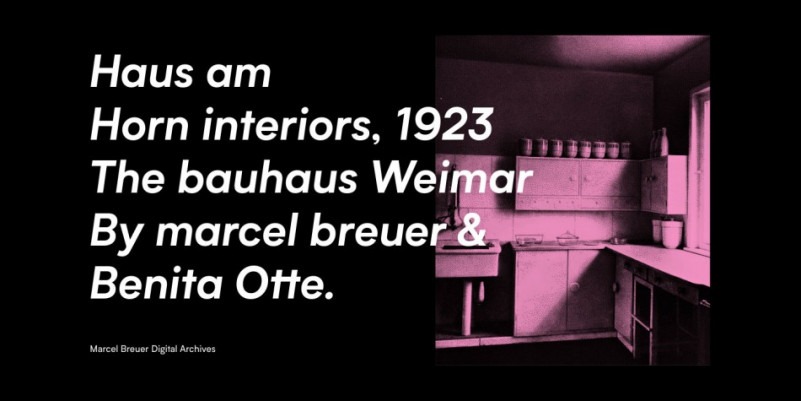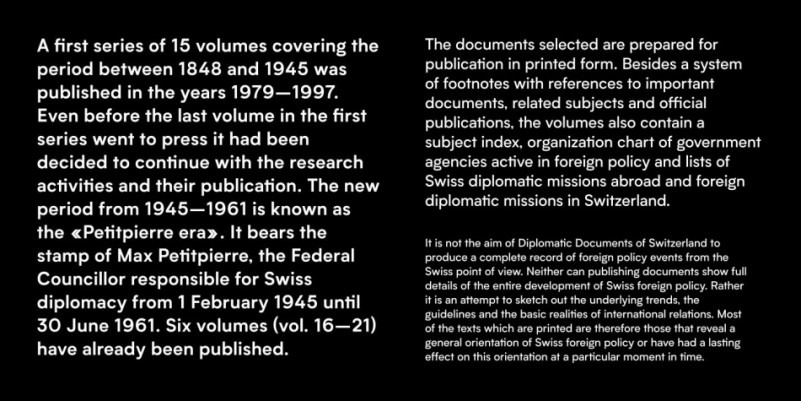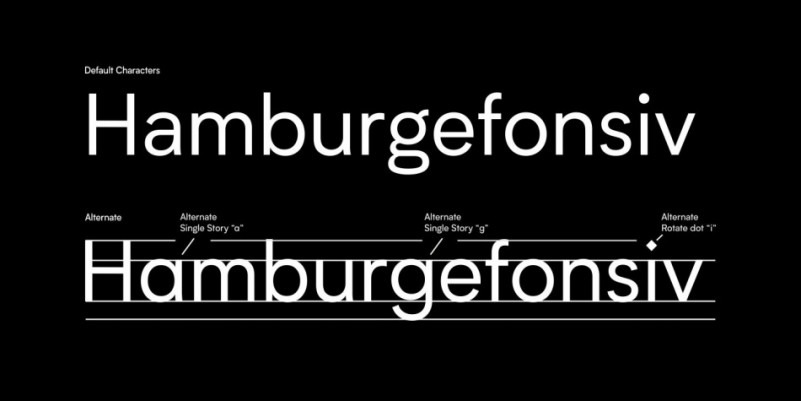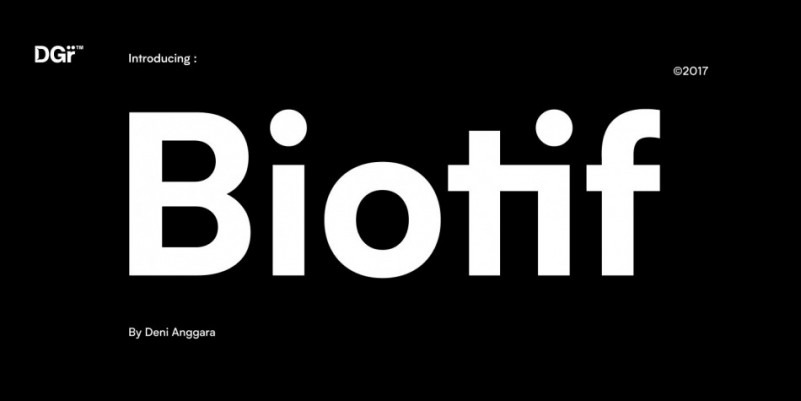
Biotif Font Family
Biotif Sans Serif Font
This font is a reliable workhorse for large, demanding design projects. It was designed to be perfectly suited to all different sizes, from small continuous text to large headlines and big signage. Inspired by Modern Style & Industrial Era Typographic and Graphic design, comes in 16 weights from Light to Black, BIOTIF is was manually hinted and optimized in small sizes for screens.
All the other characters can be accessed through the Opentype features. Fractions, Tabular Lining, Ligature, Alternate Characters, Circle Numbers, Symbols, arrow and more. Biotif has support for Multi-Language (Latin Extended) Western European, Central European & South European.